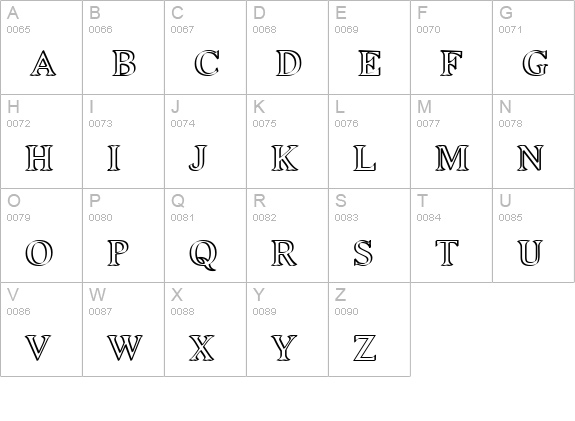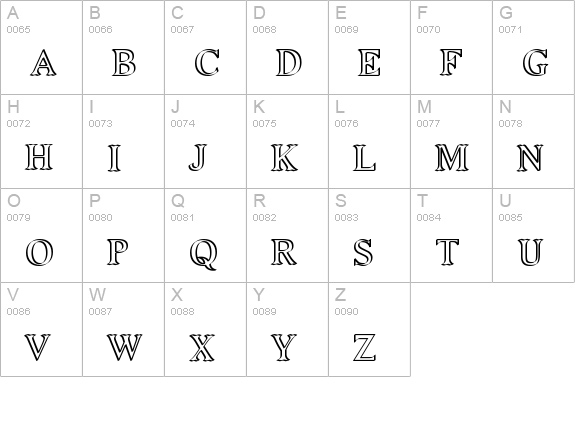
Niew CroMagnon Callig Font Details
Niew CroMagnon Callig is a stunning and elegant font that exudes sophistication and charm. Its intricate details and graceful curves make it a perfect choice for projects that require a touch of class and refinement. This unique font is ideal for creating eye-catching designs, whether for branding, invitations, posters, or any other creative endeavor. The best part? Niew CroMagnon Callig is available for free download at FontsMarket.com. This means you can easily access this beautiful font and use it in your projects without any cost. With its timeless appeal and versatility, Niew CroMagnon Callig is sure to elevate your designs to the next level. Download it today and let your creativity shine!